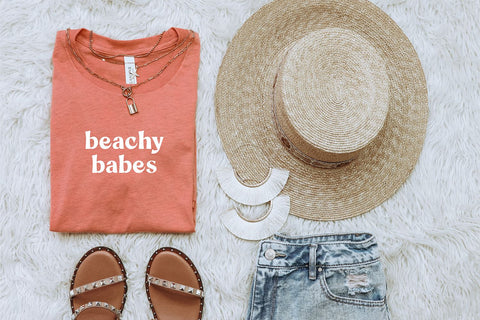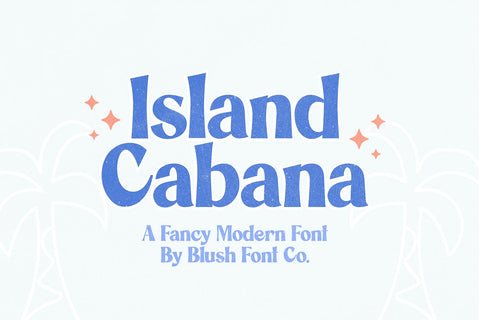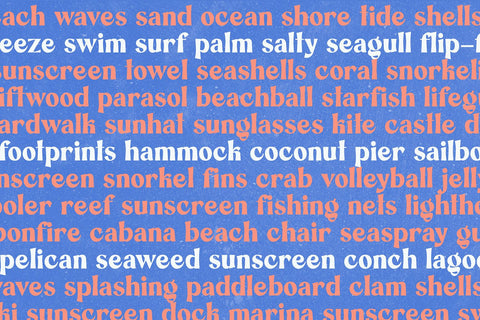
Island Cabana Fancy Modern Font
"Island Cabana" a bold serif display font.
This font is a modern serif font that is perfect for social media or crafty projects. Use it for branding, crafts for decor, invitations, and more! Upper and lowercase glyphs, numbers, punctuation marks and intl characters.